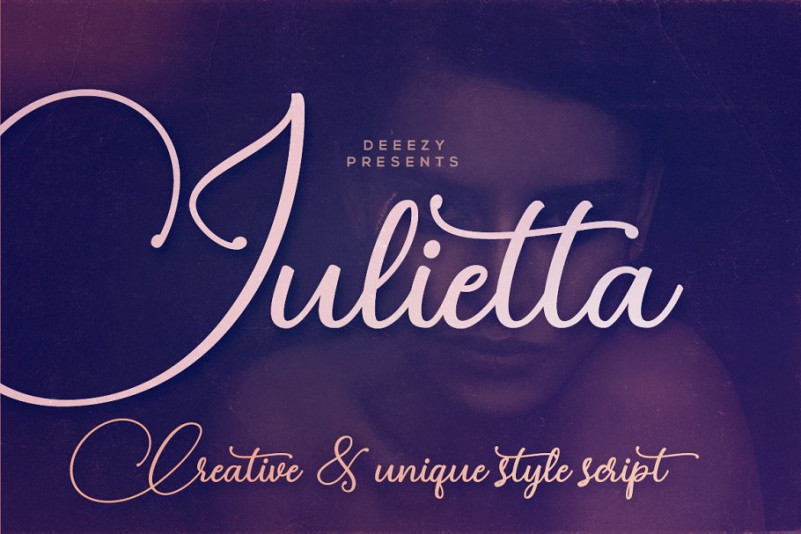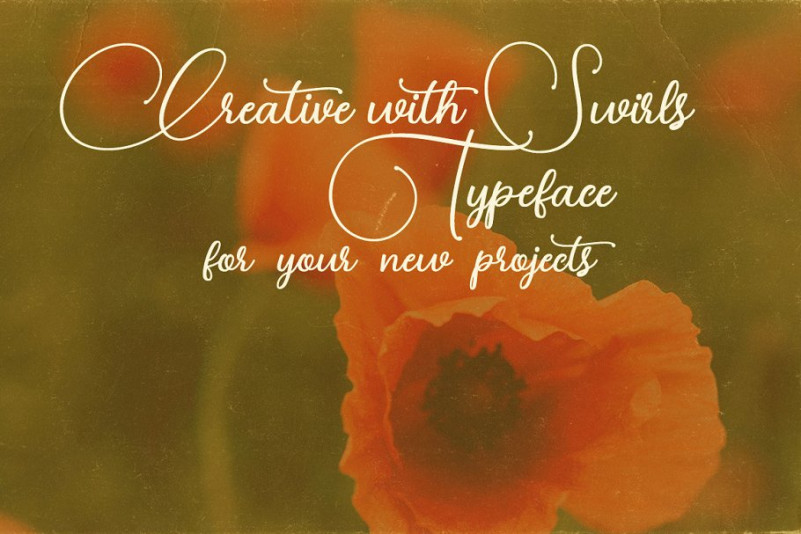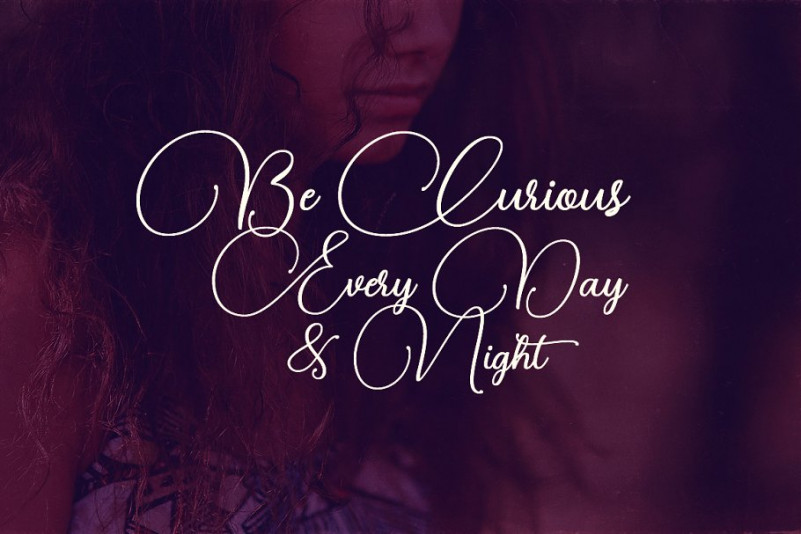
Julietta Font
Decorative and handwritten or creative style script font for your new projects. With multi language support and lot of stylistic alternates & swashes. Enjoy 😉